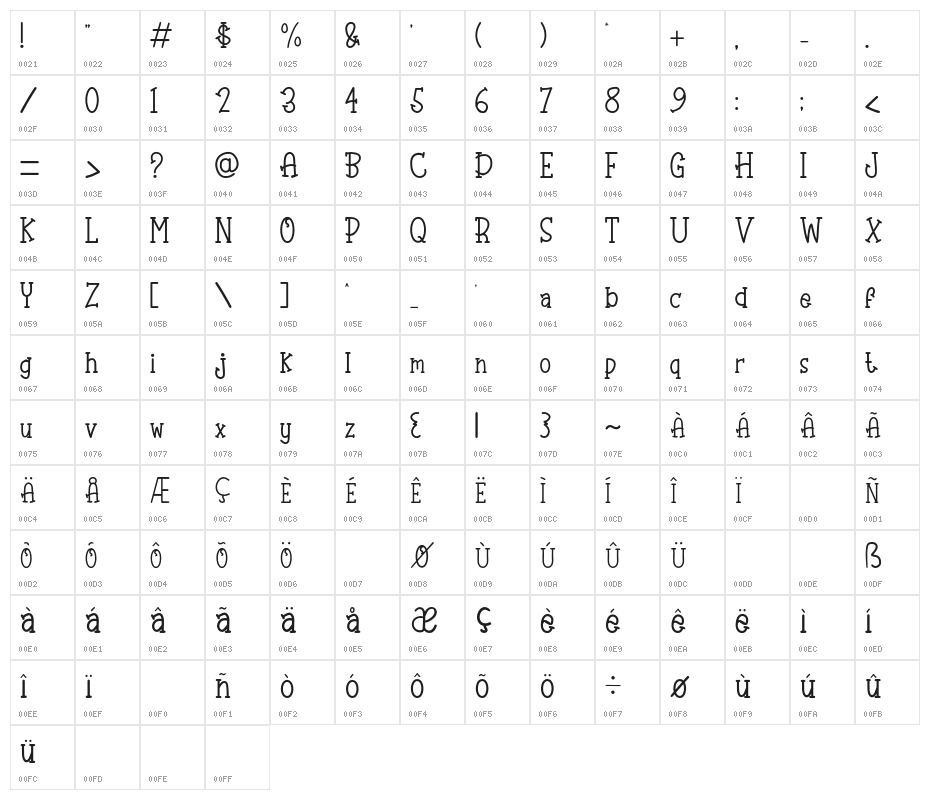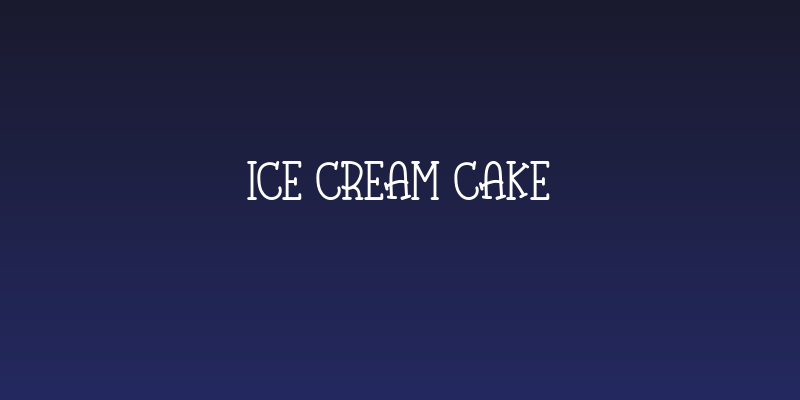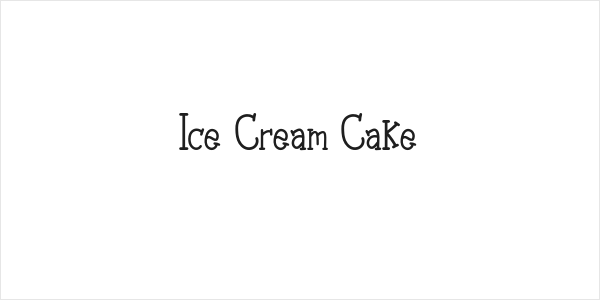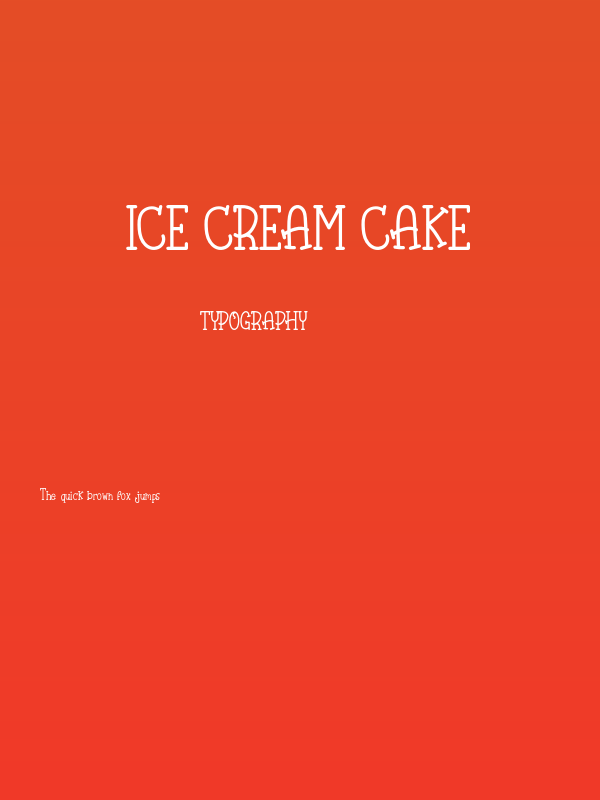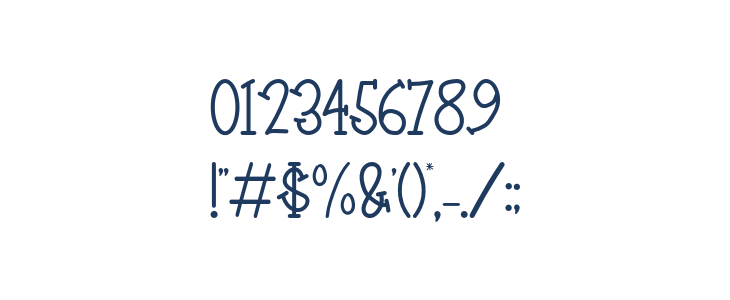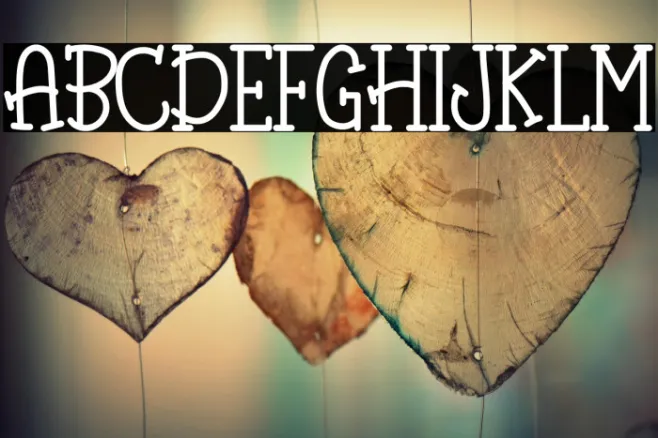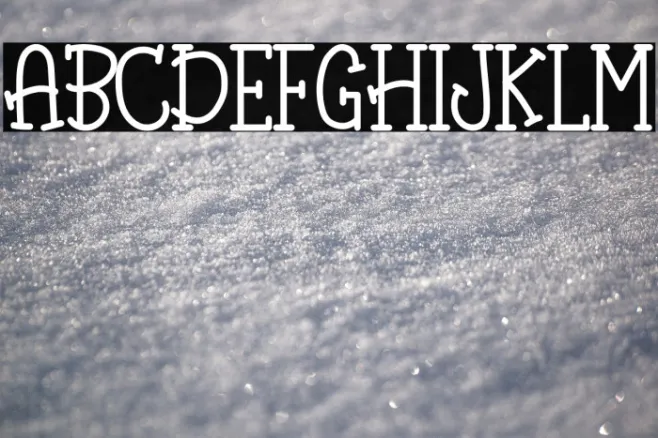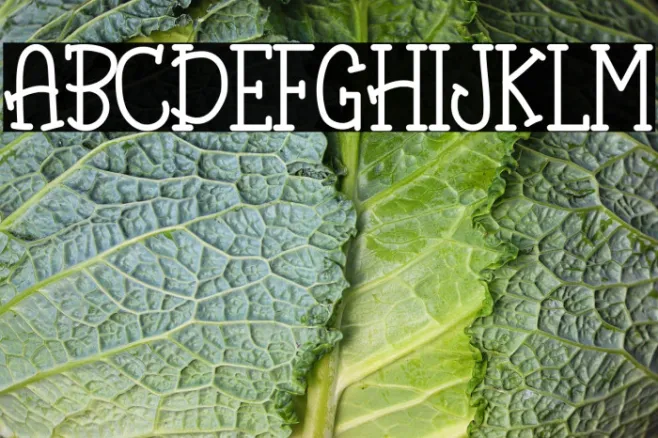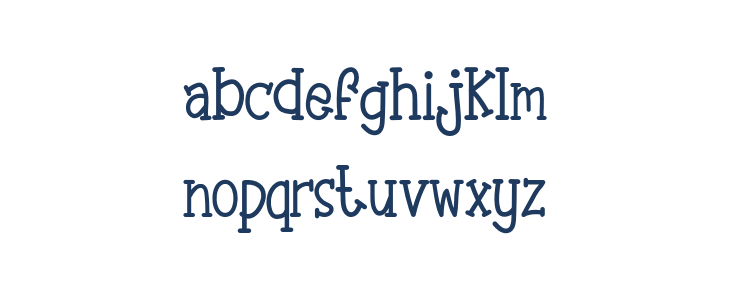
Ice Cream Cake Font
Ice Cream Cake Description
This playful and whimsical font features a unique blend of rounded and slightly irregular letterforms, giving it a hand-drawn appearance. The characters have a consistent stroke width, contributing to a friendly and approachable feel. The uppercase letters are bold and prominent, while the lowercase letters maintain a similar style with a touch of quirkiness. The numerals and special characters are designed to match the overall playful aesthetic, making this font ideal for creative projects. Its distinctive style is perfect for adding a fun and informal touch to any design.
| Proposed Projects | Ideal for children's books, greeting cards, playful branding, and creative posters. |